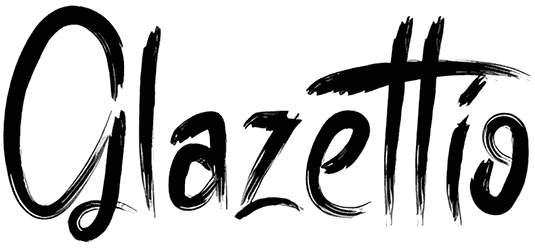
DK Brush Crush Font
DK Brush Crush’s natural and shabby feel of this font makes it a perfect choice for posters, flyers, invitations, and wherever you need hand-drawn effects, adding an artistic touch to branding, packaging, apparel, and poster designs.
This brush font comes with a remarkable collection of characters and you get both the uppercase and lowercase of the alphabets but it is hard to understand the difference.